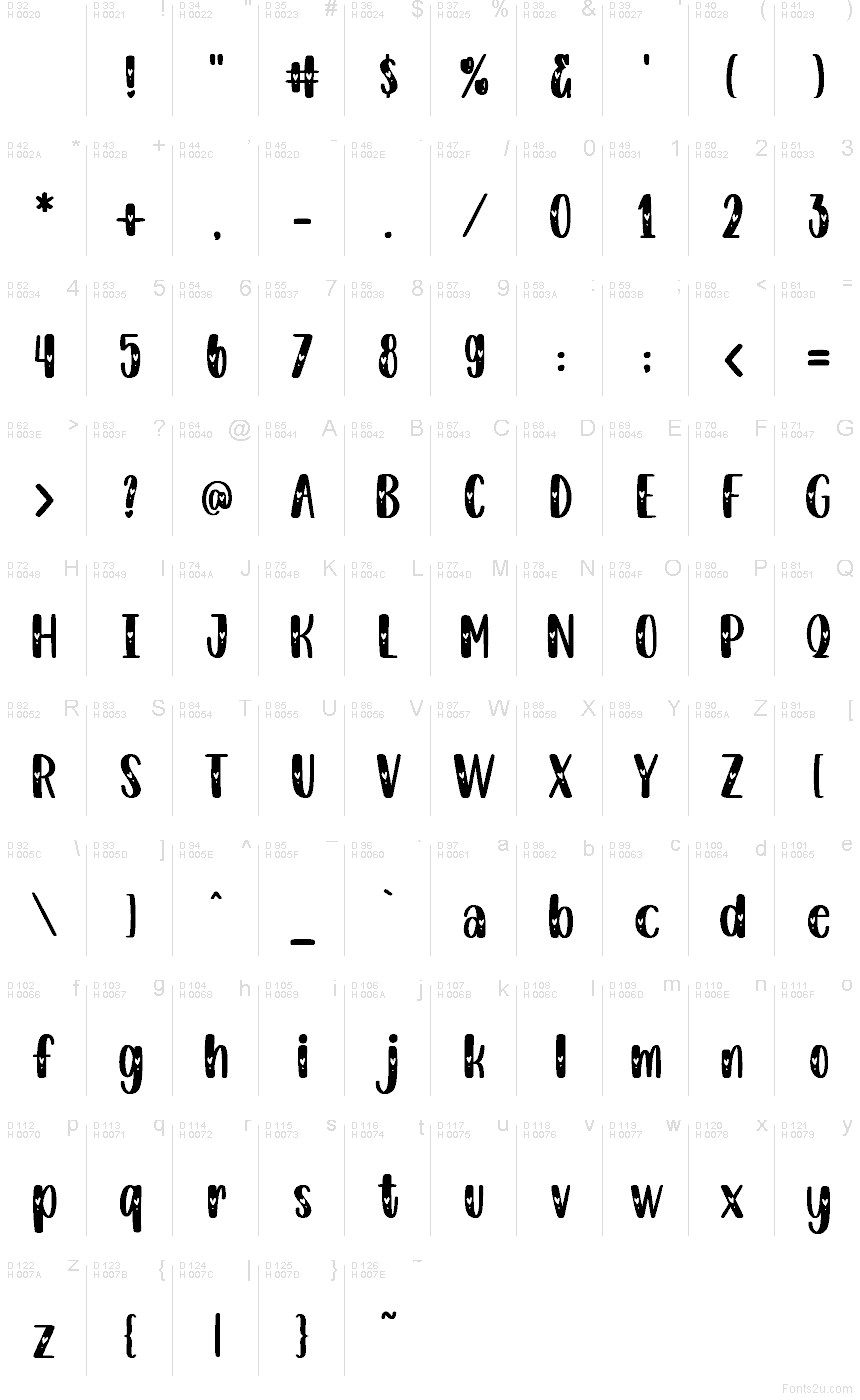
Valentine day font by Mozatype is a free holiday Valentine display typeface that turns every word into a little love note. Tall, rounded letters are filled with bold black ink and punched through with tiny heart cutouts, giving the type a handmade, cut-paper feel. It reads clearly at a glance, but still feels playful and warm-like something you’d doodle in the margins of a classroom note.
Using Valentine day, it’s easy to give romance-themed projects a cohesive look across greeting cards, party invitations, gift tags, social posts, stickers, posters, and classroom printables. This free font works beautifully as a headline or short phrase; keep it large so the heart details stay crisp. Pair it with a simple sans serif for body copy to let the cute lettering stay center stage.